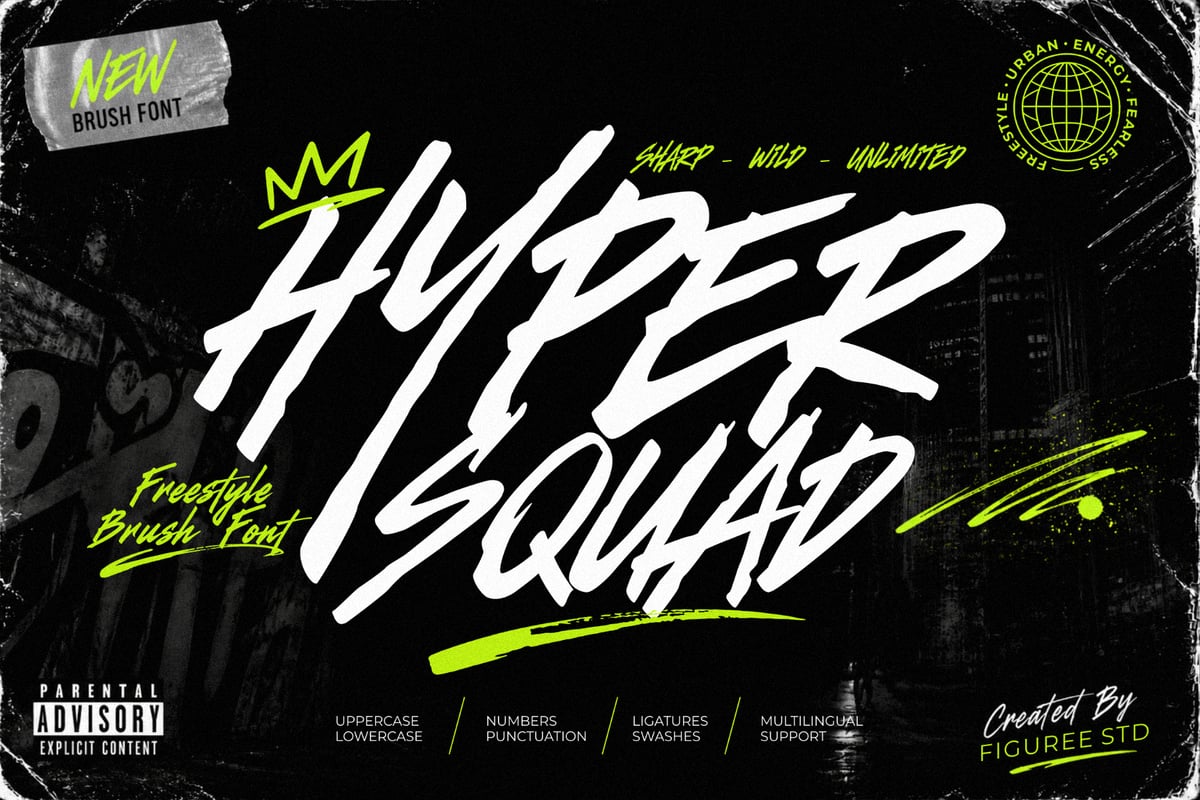
Hyper Squad
Hyper Squad – Freestyle Brush Font is designed to bring natural movement and expressive energy into your typography. Inspired by hand-painted strokes, this font delivers an organic brush style that feels spontaneous and full of character. It works well for projects that require a strong visual voice, such as posters, headlines, social media graphics, and creative layouts. With both uppercase and lowercase characters, Hyper Squad provides flexibility for building dynamic compositions. The vari